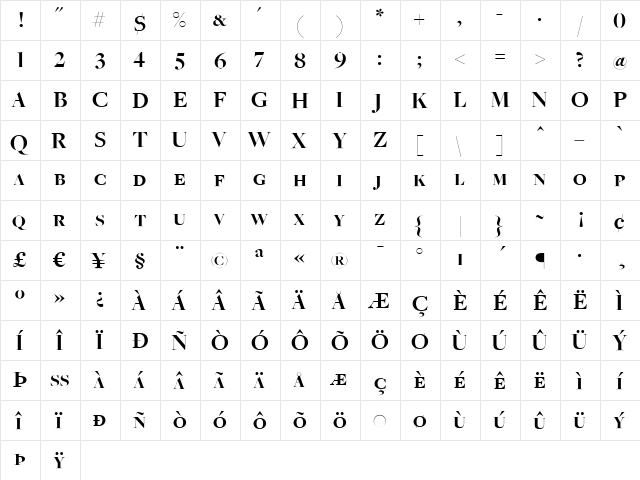
FreightBigBoldSC Regular
Regular · Joshua Darden & Phil's Fonts, Inc Joshua Darden ·
Foundry Joshua Darden & Phil's Fonts, Inc
FoundryJoshua Darden & Phil's Fonts, Inc
DesignerJoshua Darden
Design Context for FreightBigBoldSC Typeface
FreightBigBoldSC offers clean, dependable letterforms without strong stylistic allegiance, making it a practical choice for designers who need flexibility. Its bold stroke weight gives it real presence on the page.